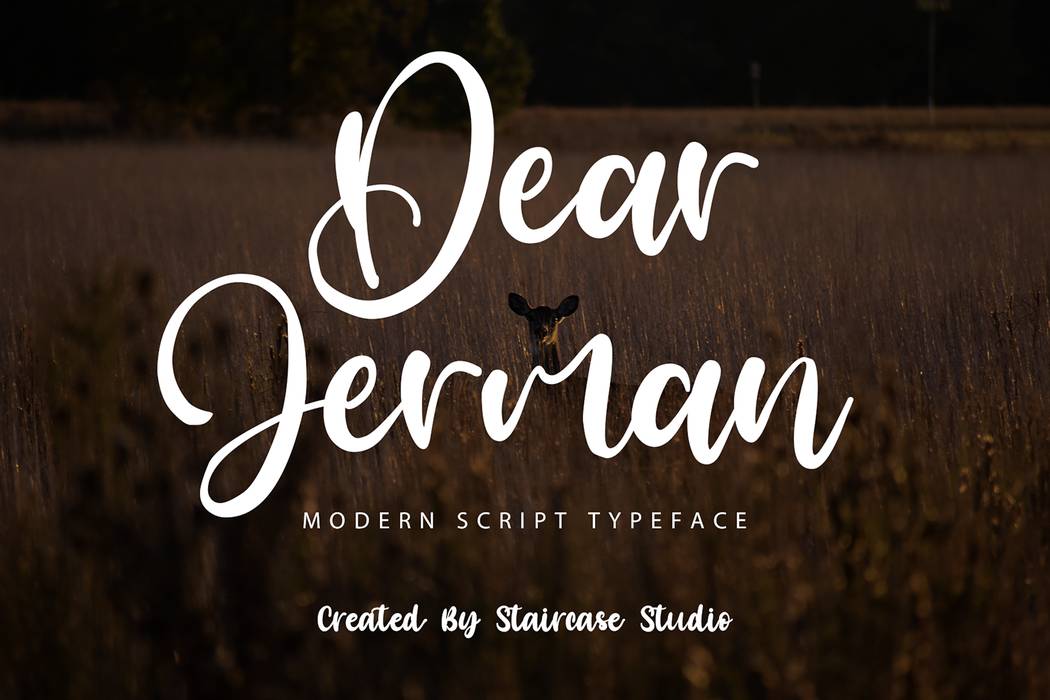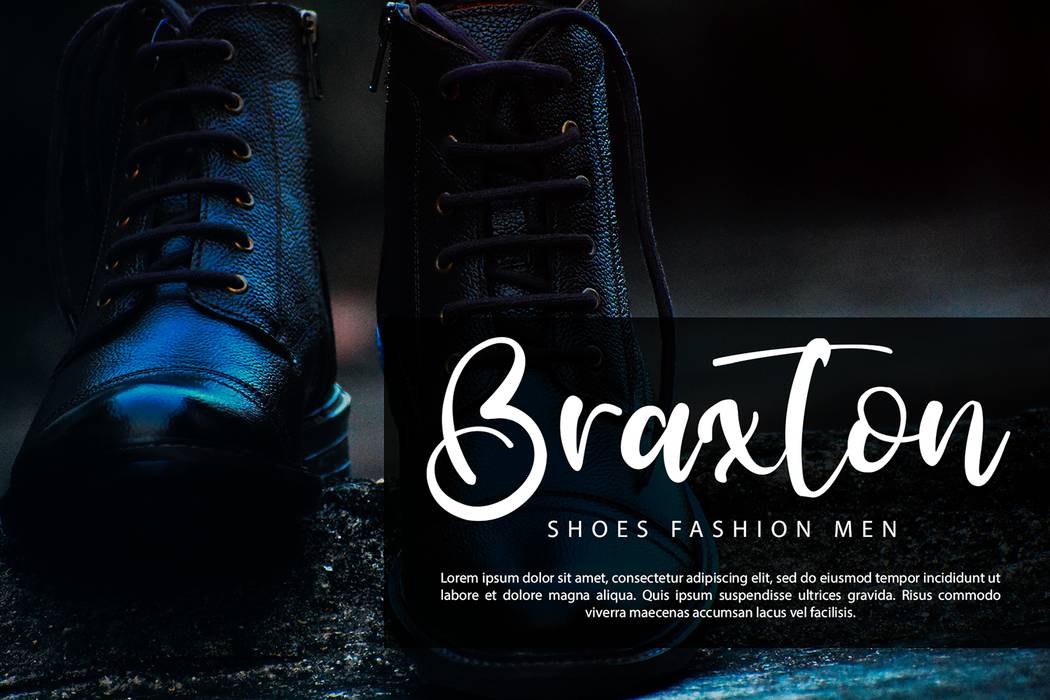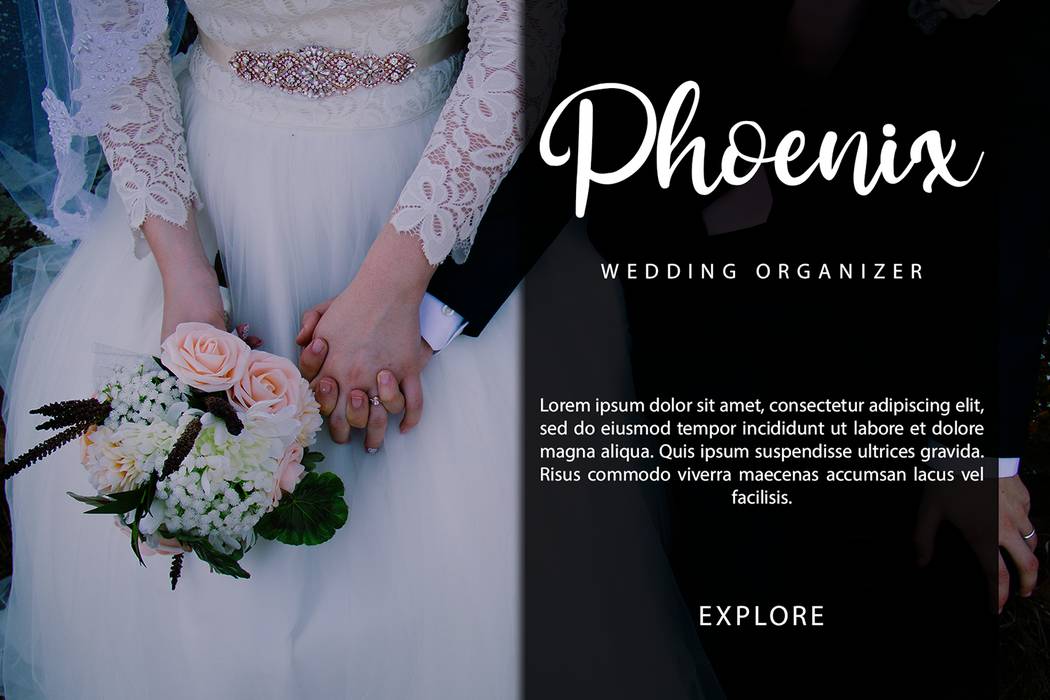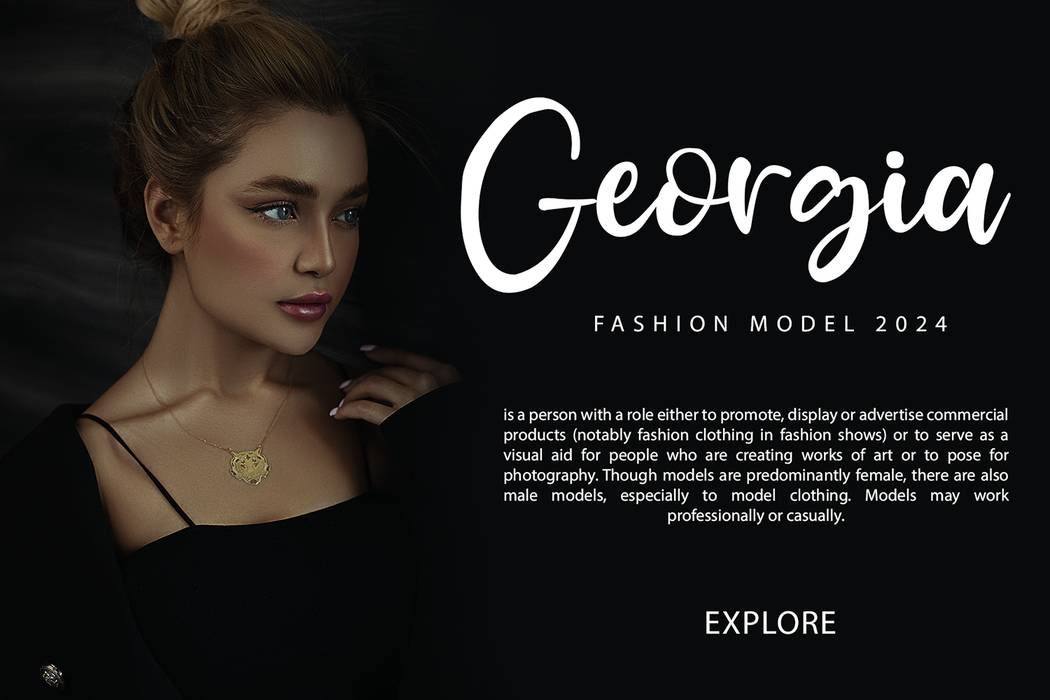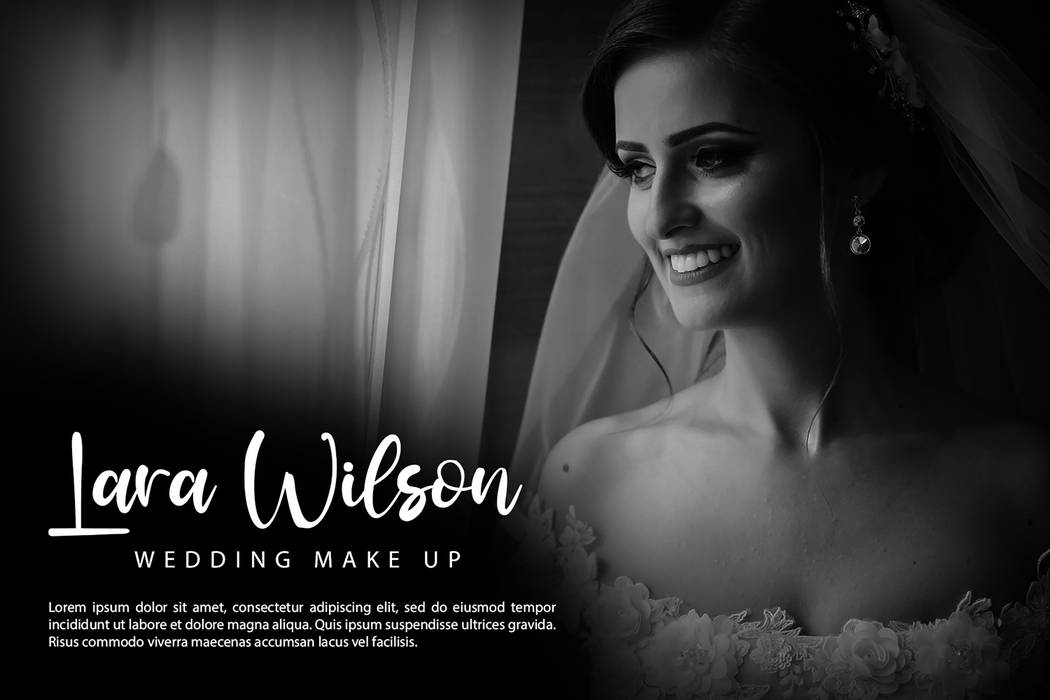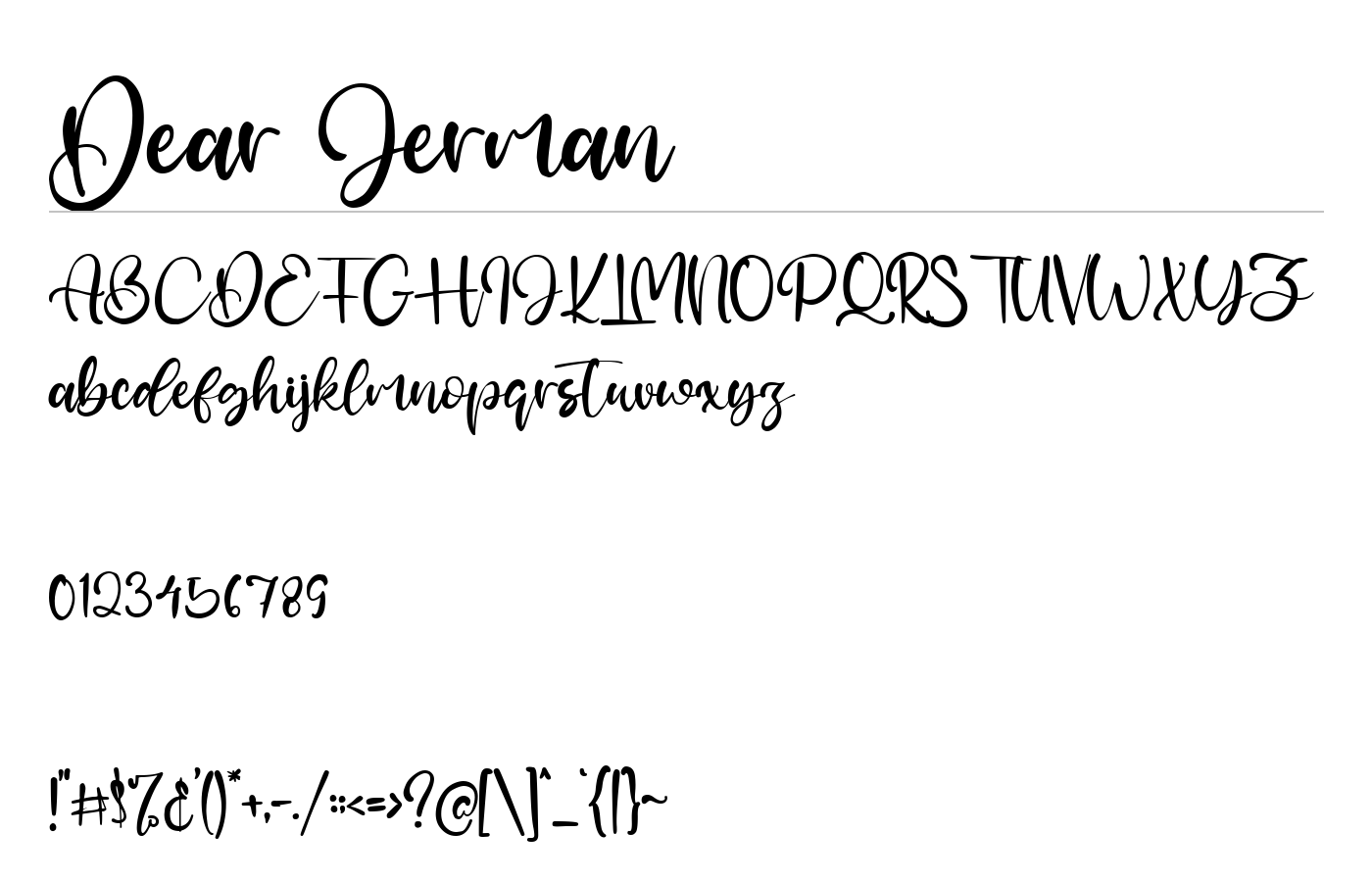
Dear Jerman is a playful and elegant script font featuring smooth, flowing strokes with a handwritten charm. Its moderately high contrast and casual yet refined letterforms make it perfect for creative branding, invitations, and stylish headlines where a personal and warm touch is desired. This font blends a modern flair with friendly legibility, making it ideal for fashion, lifestyle, and artistic projects.
Dear Jerman Font
About Dear Jerman Font
| Font family | Dear Jerman Font |
| Release date | 2021-09-15 |
| Designer | Staircase Studio |